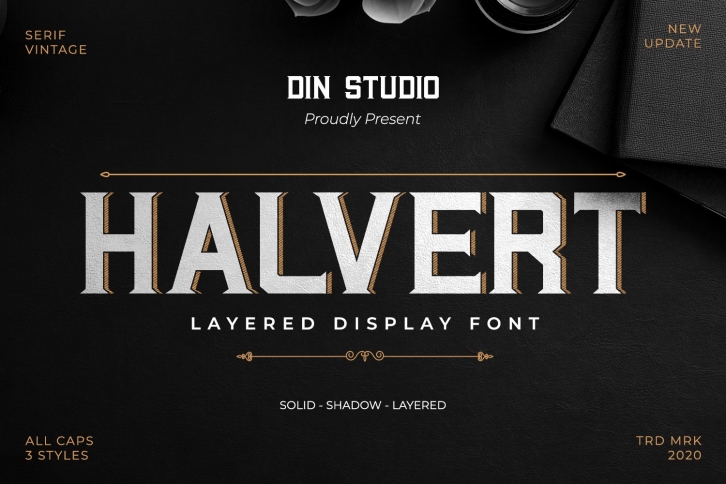
Halvert-Layered Display is a great font that was designed by Din Studio. Imagine the amount of combinations you can create using this font! The archive is 1.59 MB and it was released on August 15, 2020. Halvert-Layered Display looks beautiful on wedding invitations, greeting cards, logos, posters, labels, t-shirt designs, logos, business cards and is perfect for use in ink or watercolor works, fashion, magazines, packaging and food menus, children's books and more!